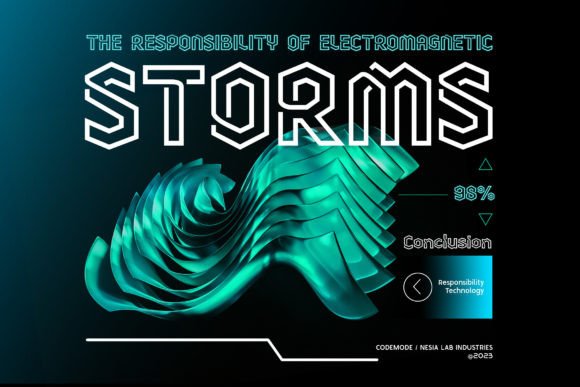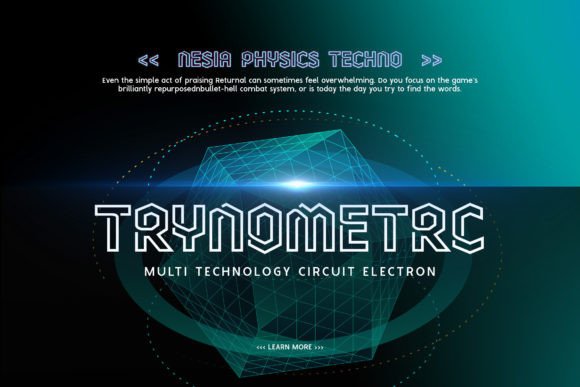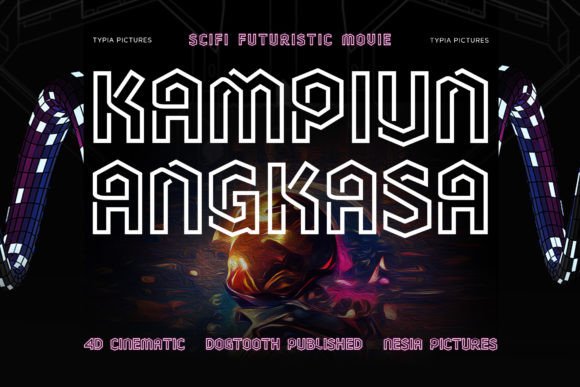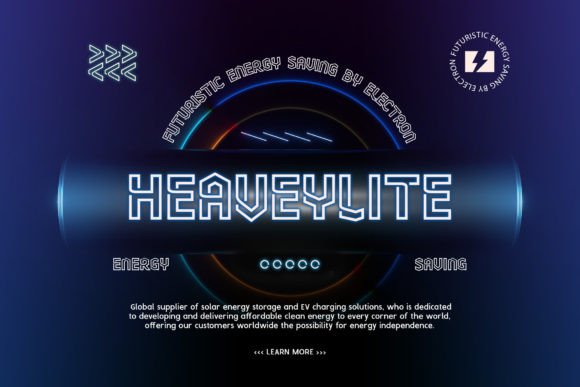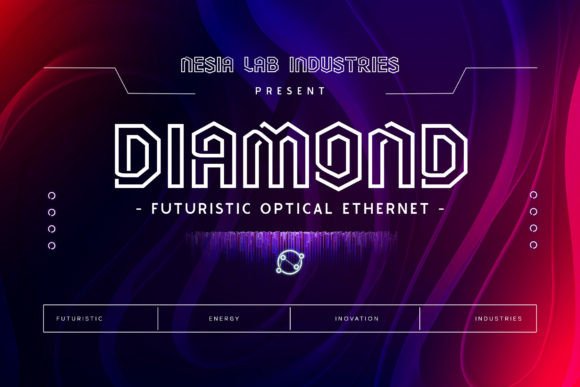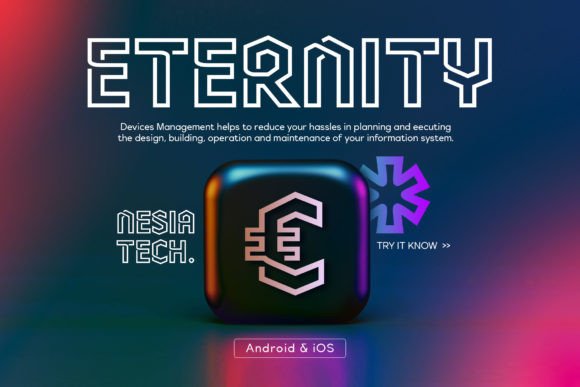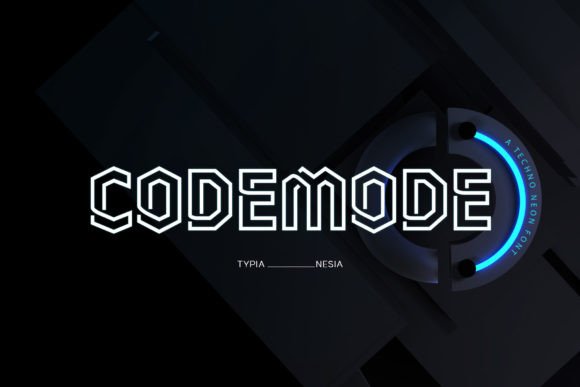
Codemode Font: Elevate Your Designs with a Futuristic Twist
In the realm of typography, fonts play a pivotal role in shaping the visual identity of a design. For designers and crafters seeking to infuse their projects with a modern, eye-catching appeal, Codemode Font emerges as an exceptional choice. This hexagonal neon sans font is engineered to bring a futuristic vibe to your creations, making it perfect for a wide array of applications.
The Essence of Codemode Font
Codemode is characterized by its clean lines, sharp edges, and geometric structure, which collectively contribute to its modern and edgy appeal. The font’s design is inspired by the aesthetic of neon lights, offering a sleek and futuristic look that can instantly elevate the visual impact of any design. Whether you’re working on signage, posters, or promotional materials for cafes and front stores, Codemode Font is poised to make your project stand out.
Key Features of Codemode Font
• Hexagonal Neon Sans Design: The unique hexagonal structure combined with a neon-like appearance gives Codemode its distinctive futuristic look.
• Clean Lines and Sharp Edges: These design elements contribute to the font’s modern and edgy aesthetic, making it suitable for projects that require a bold statement.
• Geometric Structure: The geometric foundation of Codemode enhances its visual appeal, providing a clean and organized look that is both pleasing to the eye and highly legible.
• Versatility: Codemode Font is versatile and can be applied to various design projects, including but not limited to signage, posters, cafe and store fronts, and digital displays.
Applications of Codemode Font
The versatility of Codemode Font makes it an excellent choice for a multitude of design applications. Here are some of the areas where Codemode truly shines:
• Cafes and Front Stores: Use Codemode to create eye-catching menus, promotional banners, and storefront signage that captures the attention of passersby.
• Signage: Whether it’s for a business, an event, or informational purposes, Codemode’s clear and bold design ensures your message is conveyed effectively.
• Posters: Add a futuristic touch to your posters for movies, events, or product launches, making them more engaging and memorable.
• Digital Projects: Codemode is also suitable for digital displays, including website headers, social media graphics, and digital advertising, where its modern look can enhance user engagement.
Why Choose Codemode Font?
In a world where design trends are constantly evolving, having a font that can keep pace with the changing landscape is invaluable. Codemode Font offers:
• Uniqueness: Its hexagonal neon sans design sets it apart from more traditional fonts, ensuring your designs have a distinctive look.
• Legibility: Despite its stylized appearance, Codemode maintains high legibility, making it practical for use in a variety of contexts.
• Adaptability: Codemode can be adapted to fit the tone and style of your project, from subtle and sophisticated to bold and attention-grabbing.
Codemode Font is a powerful tool for designers and crafters looking to imbue their projects with a modern, futuristic aesthetic. Its unique blend of hexagonal structure and neon-like appearance, combined with its versatility and legibility, makes it an excellent choice for a wide range of design applications. Whether you’re aiming to create striking signage, compelling posters, or captivating digital content, Codemode Font is poised to elevate your designs to new heights.